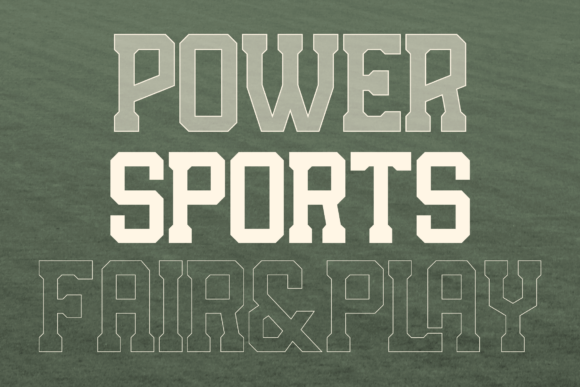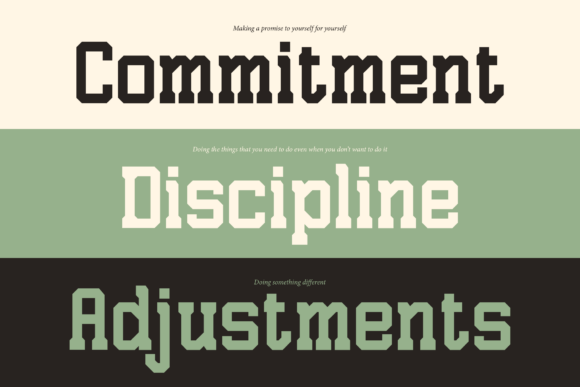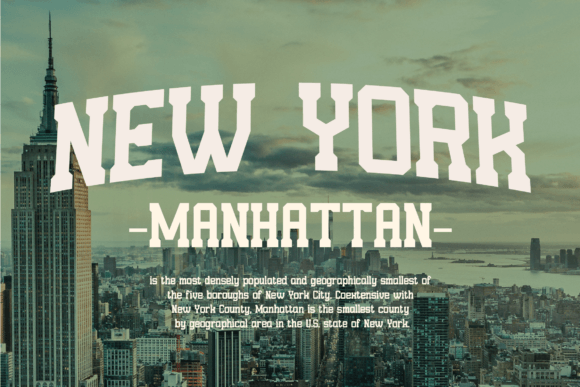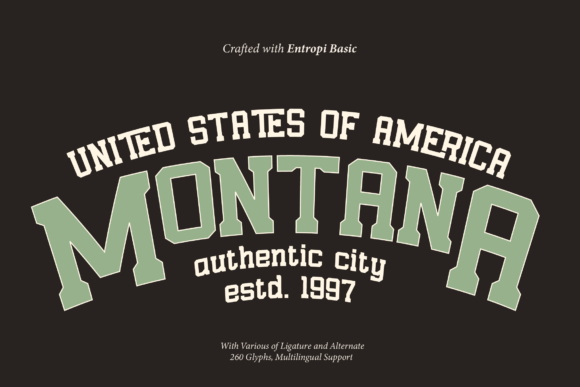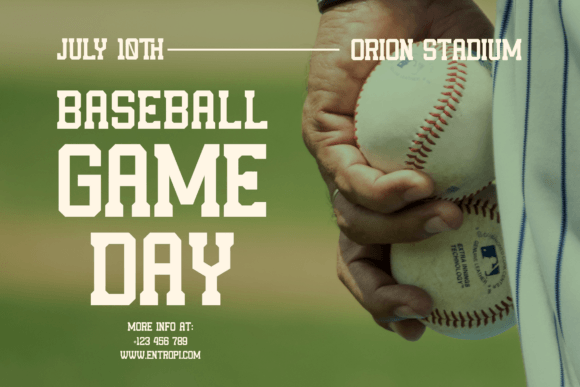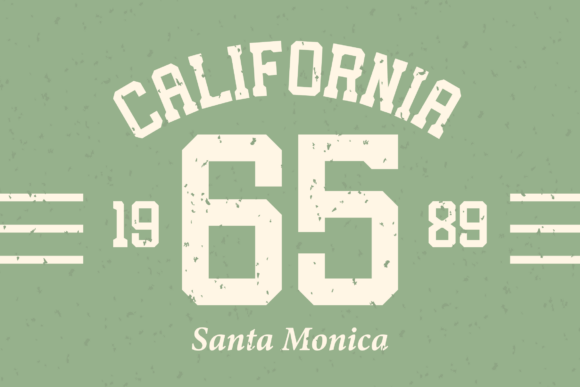
Discover the Power of Entropi Basic Font: A Display Slab Serif for Impactful Designs
In the world of typography, fonts play a crucial role in conveying messages and setting the tone for designs. For designers and crafters looking to make a statement, Entropi Basic Font is an excellent choice. This display slab serif font is designed to turn heads with its bold, thick letters and strong, block-like shapes. In this article, we’ll explore the features and benefits of Entropi Basic Font, and how it can elevate your designs to the next level.
What is Entropi Basic Font?
Entropi Basic Font is a type of font classified as a “Display Slab Serif.” This category of fonts is characterized by bold, thick letters with strong, block-like shapes and short lines at the ends of the letters, known as serifs. The serifs help to guide the reader’s eye along the text, making it easier to read, especially in large formats.
Key Features of Entropi Basic Font
- Bold and Thick Letters: Entropi Basic Font features bold, thick letters that are perfect for making a statement. The font’s boldness ensures that your text stands out, even from a distance.
- Strong, Block-like Shapes: The font’s block-like shapes give it a sturdy and robust feel, making it ideal for designs that require a strong visual presence.
- Short Serifs: The short serifs at the ends of the letters help to guide the reader’s eye along the text, making it easier to read.
Best Use Cases for Entropi Basic Font
Entropi Basic Font is best suited for big text like titles or signs, where you want the words to stand out and be easy to read. Here are some ideal use cases for this font:
- Headings and Titles: Use Entropi Basic Font to create bold and eye-catching headings and titles for your designs.
- Signage and Posters: The font’s boldness and strong shapes make it perfect for signage and posters that need to grab attention.
- Branding and Logos: Entropi Basic Font can be used to create bold and memorable logos and branding materials.
Benefits of Using Entropi Basic Font
Using Entropi Basic Font in your designs offers several benefits:
- Improved Readability: The font’s boldness and serifs make it easy to read, even in large formats.
- Enhanced Visual Impact: Entropi Basic Font’s strong shapes and bold letters ensure that your text stands out and grabs attention.
- Versatility: The font can be used in a variety of design contexts, from headings and titles to signage and branding.
Tips for Using Entropi Basic Font Effectively
To get the most out of Entropi Basic Font, follow these tips:
- Use it Sparingly: Entropi Basic Font is best used sparingly, as a bold font can quickly overwhelm a design.
- Pair it with Other Fonts: Combine Entropi Basic Font with other fonts to create visual interest and hierarchy.
- Experiment with Colors and Textures: Play with different colors and textures to add depth and dimension to your designs.
Entropi Basic Font is a powerful display slab serif font that’s perfect for designers and crafters looking to make a statement. With its bold, thick letters and strong, block-like shapes, this font is ideal for big text like titles or signs. By understanding the features and benefits of Entropi Basic Font, you can harness its power to create impactful designs that grab attention and communicate your message effectively.